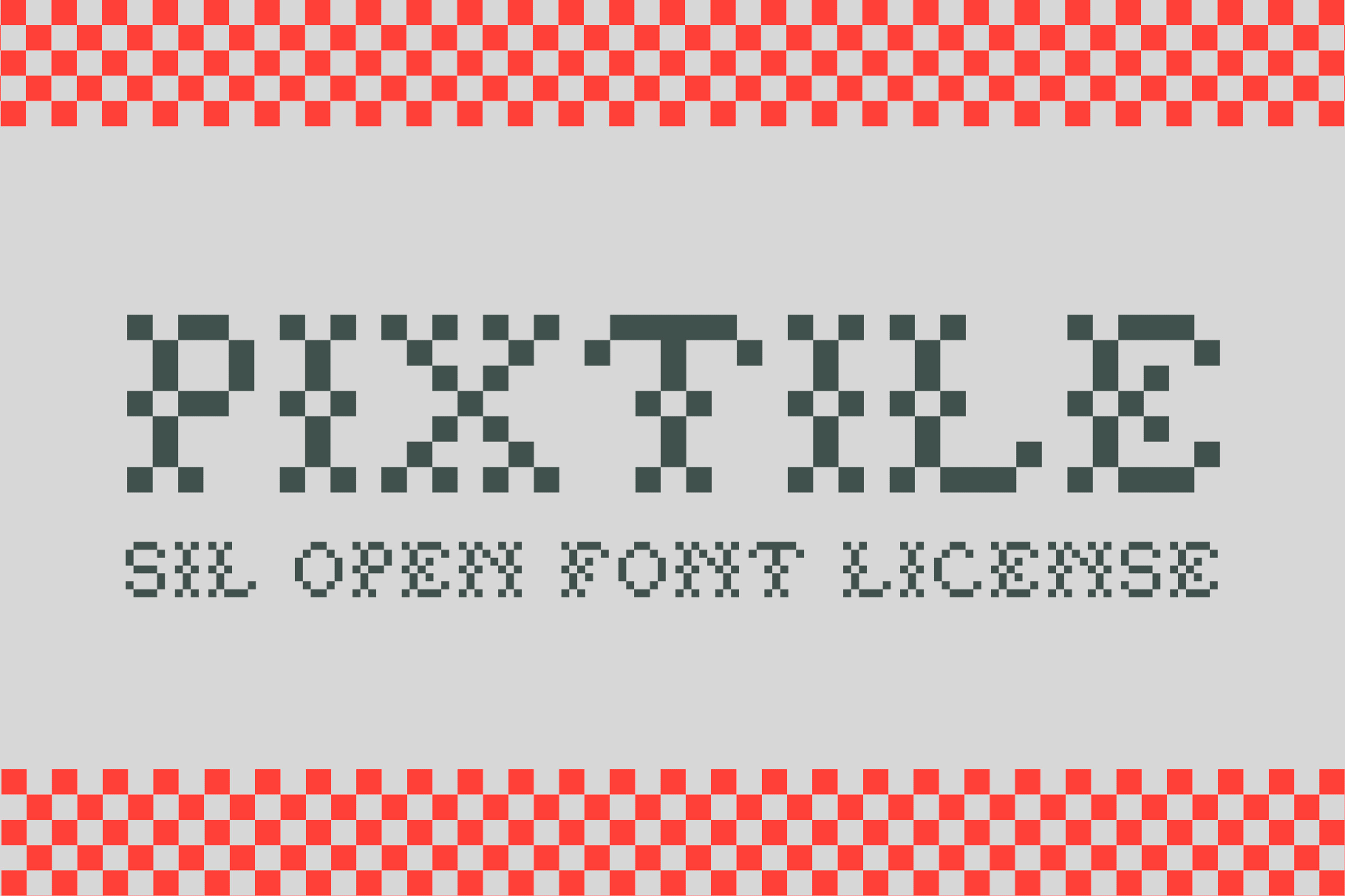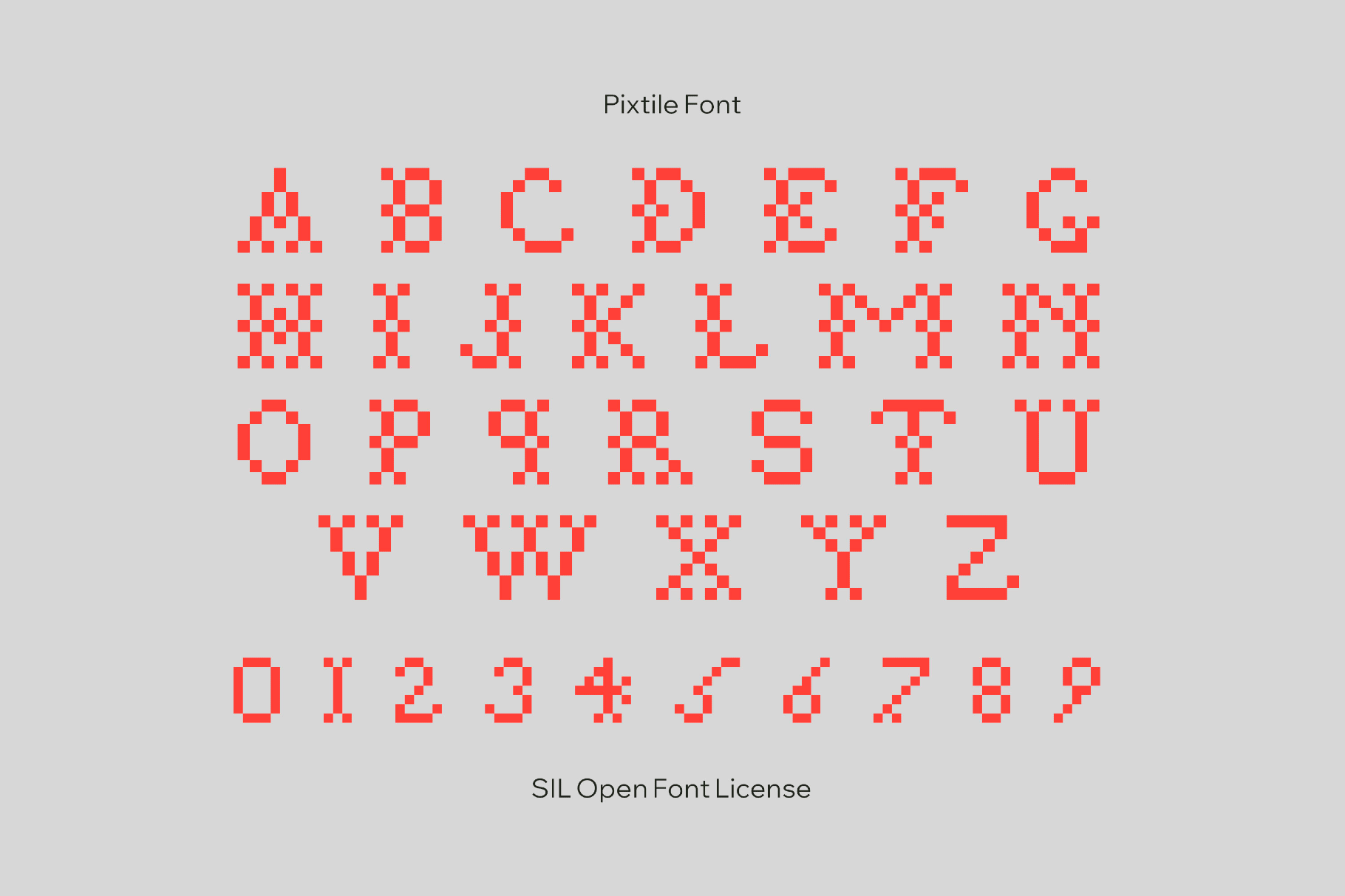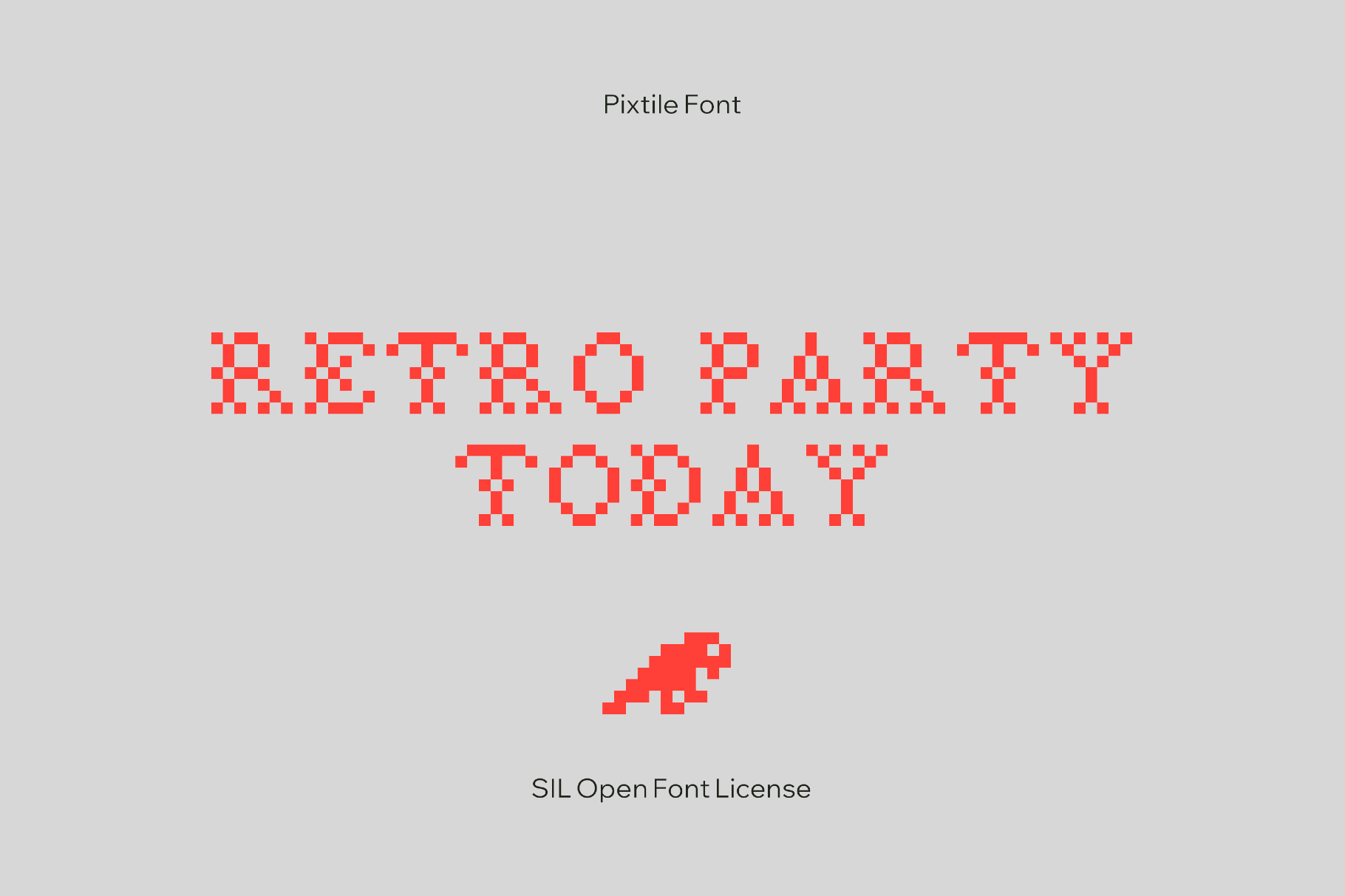
Pixtile Font
Pixtile
Pixtile is a compact all-caps font. Its letterforms are built from tiny repeating tiles. With its monospaced rhythm and a set of small symbols and ornaments, it’s great at turning plain text into a crafted, yet readable piece.
You can drop Pixtile into arcade and platformer logos, game title screens, pause and options menus, scoreboard overlays, esports and streaming graphics, poster headlines for retro or tech events, digital stickers, and achievement badges.